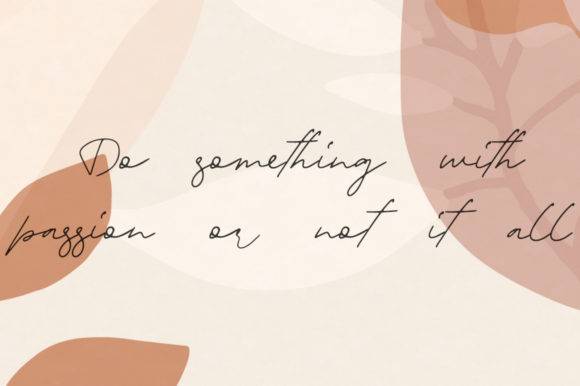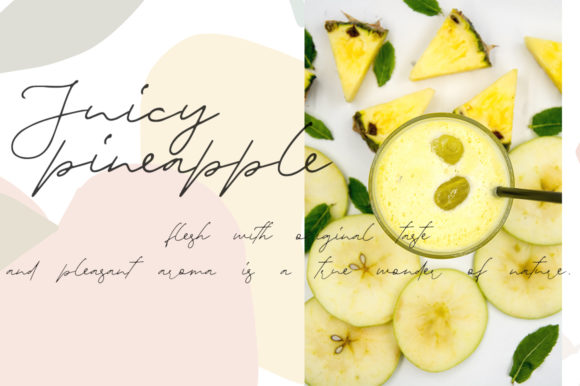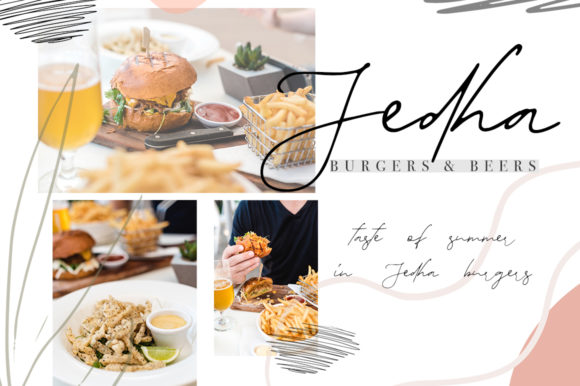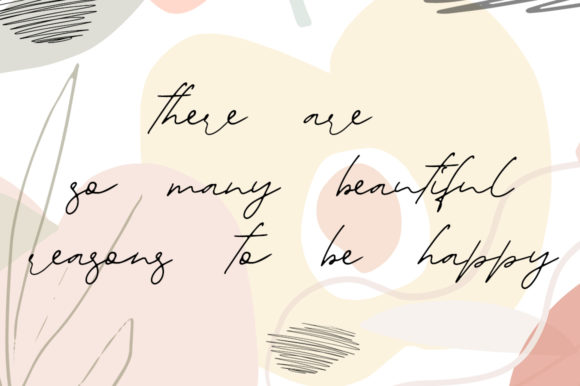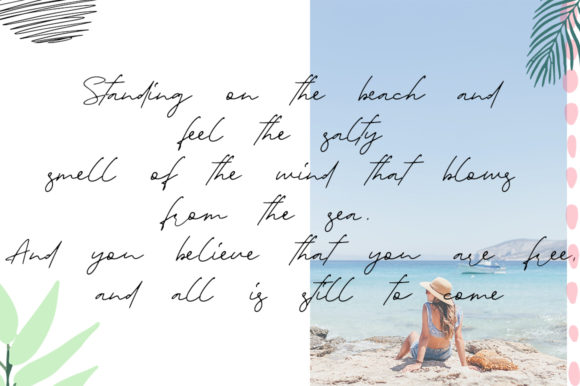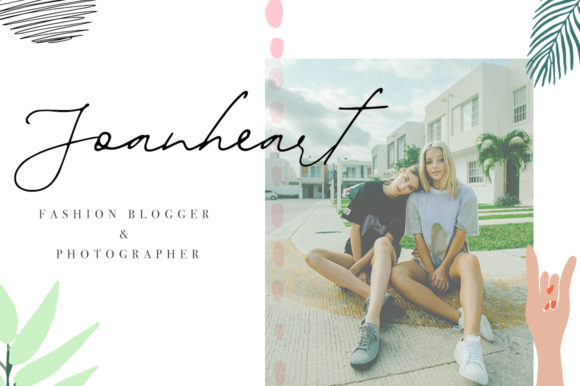
Getting Inspired with Satlom Font
As designers, we’ve all been there – staring at a blank canvas, struggling to bring our creative vision to life. But sometimes, all it takes is a single font to spark the magic. For me, that font is Satlom Font. Its elegant script style has a way of elevating any design project, making it feel more refined and sophisticated.
Whether you’re working on a high-end branding project or a personal creative endeavor, Satlom Font is a valuable resource to have in your toolkit. Its versatility and high-quality design make it perfect for a wide range of applications, from logos and business cards to websites and social media graphics.
Key Features of Satlom Font
- Supports a wide range of languages, making it a versatile design choice
- Features a unique, modern design aesthetic with a clear and legible font style
Honest Review: Satlom Font
I recently stumbled upon the Satlom Font, and I must say, it’s been a great addition to my design resources. The high-quality design makes it perfect for any creative project.
Here are some of the features that I think work well:
- ✨ Clean and simple design that’s easy to read
However, there are some limitations that I think are worth mentioning:
- ⚠️ Limited character set, which might be a problem for designers who need to work with a wide range of characters
- ⚠️ Not all weights and styles are available, which can limit its use in certain design scenarios
Overall, I’m really impressed with the Satlom Font. It’s a great option for designers who are looking for a high-quality, free font that’s perfect for creative projects. While it has some limitations, I think it’s a great addition to any design resource collection.
Tips for Getting the Most Out of Satlom Font
The Satlom Font is a versatile design resource that can be used in a variety of creative projects, including logos, business cards, and presentations. Its high-quality design and transparent background make it a great choice for designers looking for a free download font.
Alternatives to Satlom Font
The Great Vibes Font is a high-quality, elegant script font perfect for creative projects that require a touch of sophistication. It’s ideal for designing invitation cards, posters, and other visual materials that need a beautiful, handwritten look.
Compared to Satlom Font, Great Vibes Font has a more refined and polished appearance, making it suitable for formal events and corporate branding. It’s available for free download and features a transparent background, making it easy to customize.
Alex Brush Font is a beautiful, handwritten font designed for designers who need a unique and creative font for their projects. It’s perfect for designing wedding invitations, menus, and other visual materials that require a personal touch.
Compared to Satlom Font, Alex Brush Font has a more playful and whimsical appearance, making it suitable for creative projects that need a fun and lively vibe. It’s available for free download and features a transparent background, making it easy to customize.